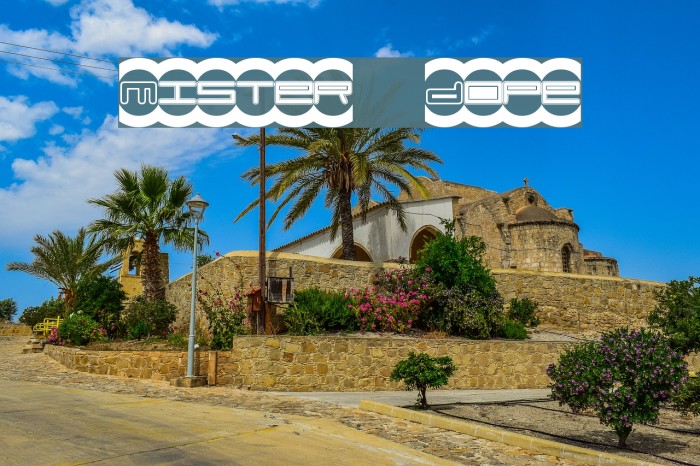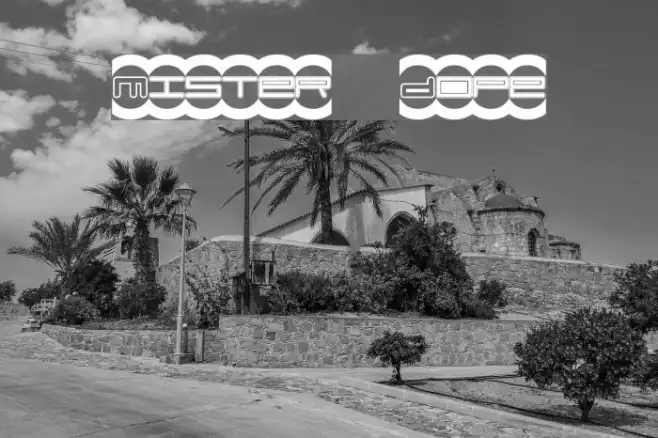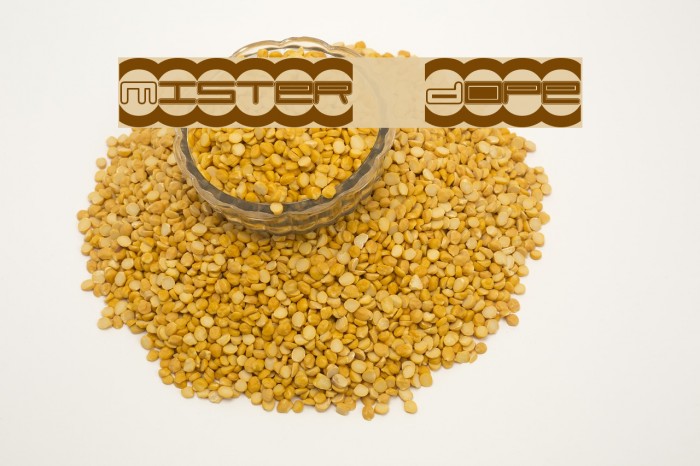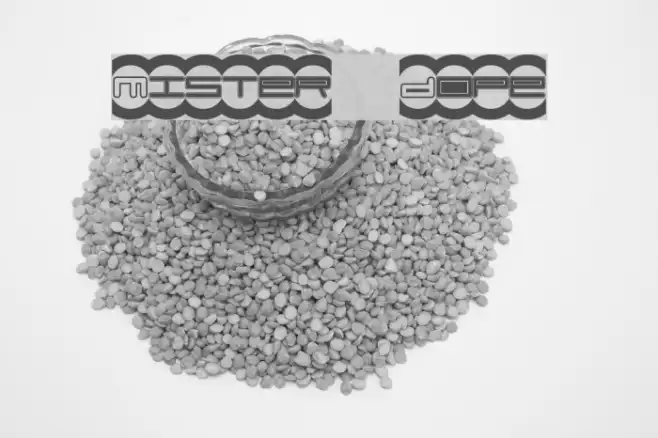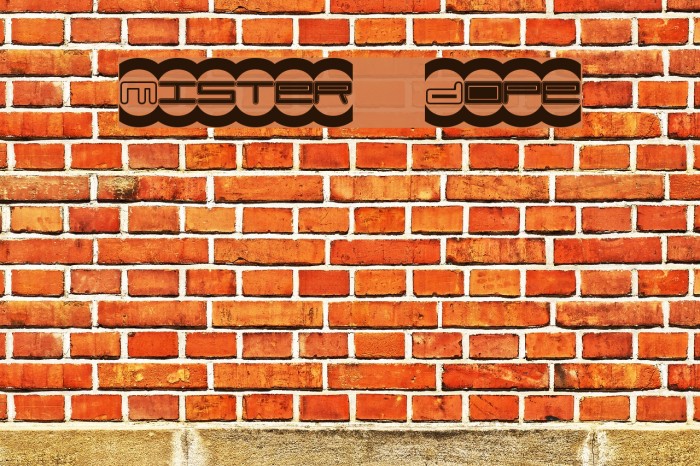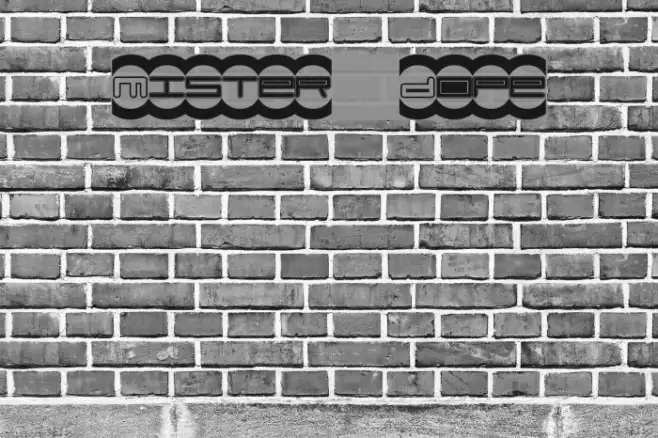
Mister Dope Font
Mister Dope Description
This font features a bold, playful design with a unique bubble-like outline surrounding each character. The letters are uppercase and lowercase, with a consistent circular motif that gives a sense of fun and creativity. The numbers and special characters follow the same design principle, making the font cohesive and visually striking. The thick outlines and rounded edges contribute to a friendly and approachable aesthetic, making it ideal for projects that require a touch of whimsy and boldness.
| Overall Style | Playful, Modern |
| Proposed Projects | Ideal for children's books, playful branding, party invitations, and creative posters. |